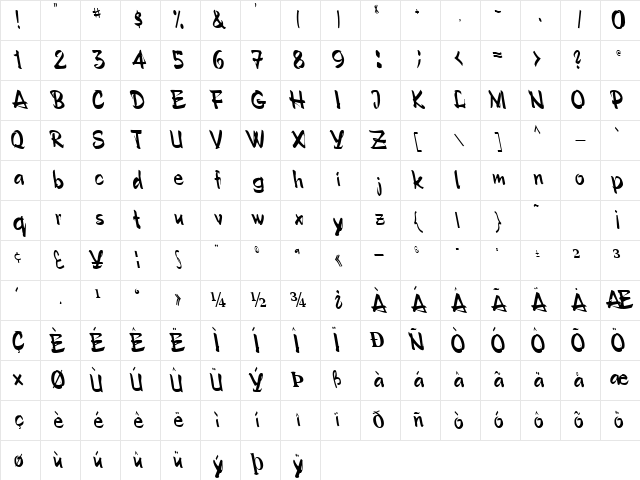
Lip Regular Free Font
Lip Regular
Lip Family
Design Context for Lip
Lip is a composed and adaptable typeface that performs quietly and consistently across a wide range of design contexts.